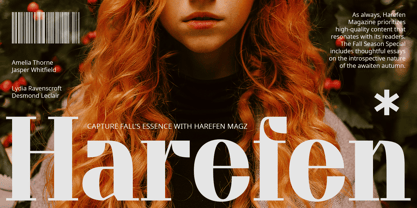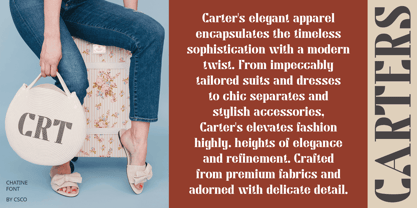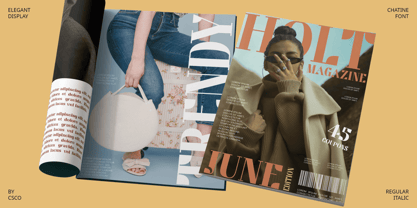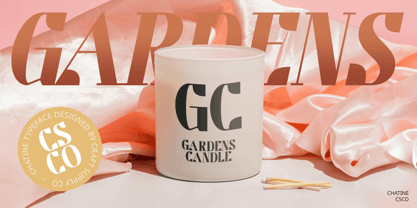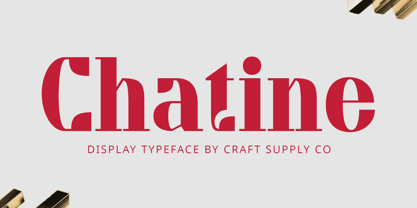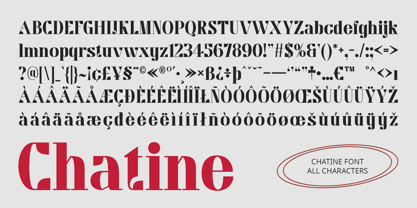
Chatine
by Craft Supply Co
The Chatine Font Family was designed by Trio Nazzar Saputra, Wahyu Hadi Yuana and published by Craft Supply Co. Chatine contains 2 styles and family package options. More about this family
Chatine – Display Typeface: Retro Elegance Revived Display Serif Font with Retro Style Introducing Chatine, our display serif font with a retro style, perfect for various classic designs. Its timeless appeal and elegant curves bring a touch of nostalgia to any project, making it ideal for branding, packaging, and editorial design. Versatile and Classic With its versatile design, Chatine Typeface is suitable for a variety of uses, including posters, signage, and invitations. Its retro style adds a sense of charm and sophistication, ensuring that your designs have a classic and timeless look. Perfect for Classic Designs Chatine Typeface is the ideal choice for projects that require a classic and elegant look. Whether you’re designing a vintage-inspired poster or creating a retro-style logo, Chatine adds a touch of retro elegance to your designs. Enhanced Nostalgia Chatine Typeface prioritizes nostalgia, ensuring that your designs evoke a sense of classic charm. Whether used in print or digital media, this font adds a vintage flair that resonates with viewers and enhances the overall aesthetic of your projects. Revive the elegance of the past with Chatine Typeface and add a touch of retro charm to your designs.
Designers: Trio Nazzar Saputra, Wahyu Hadi Yuana
Foundry: Craft Supply Co